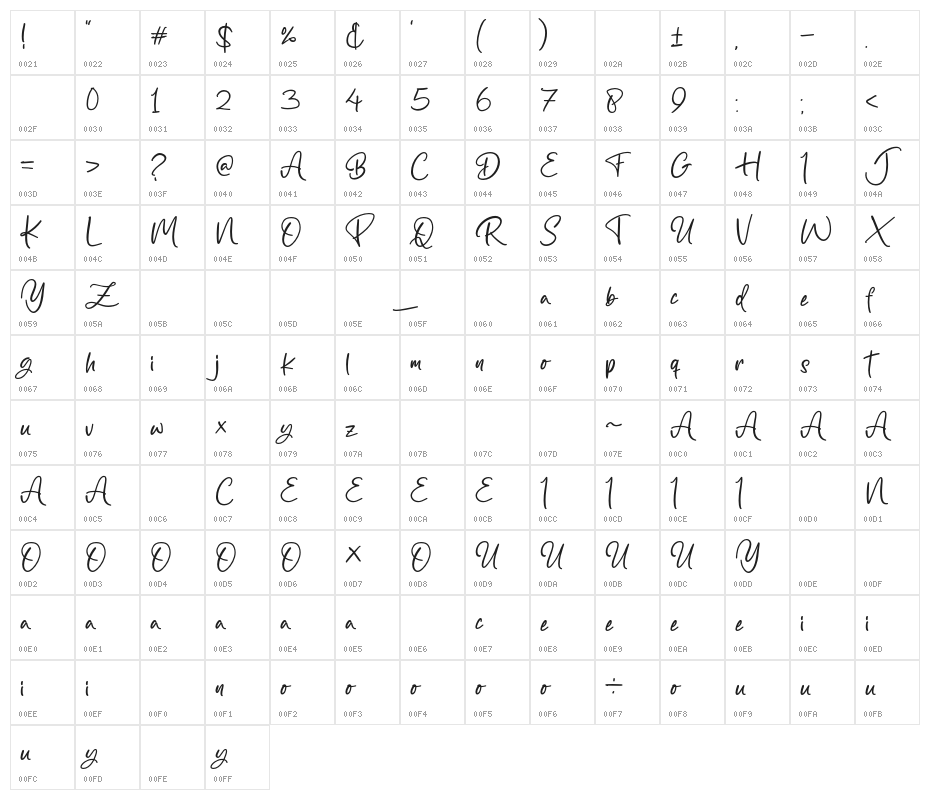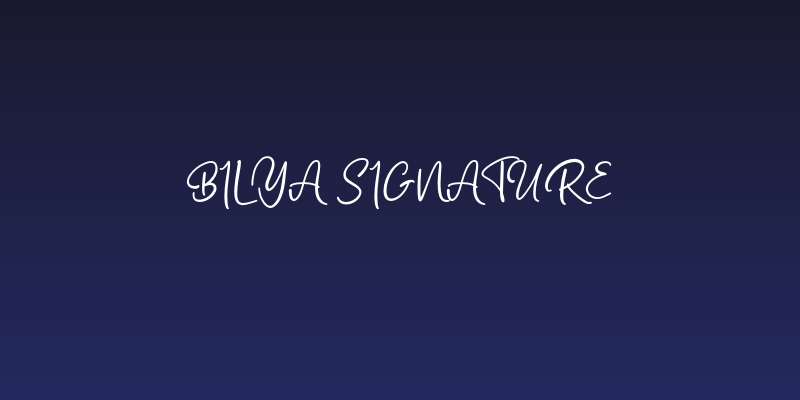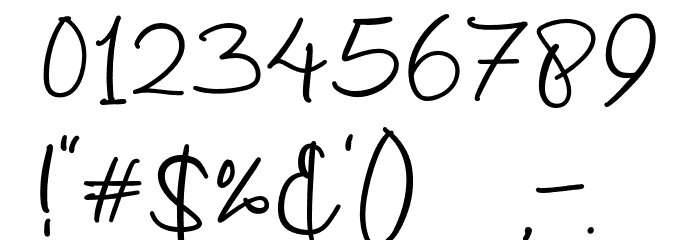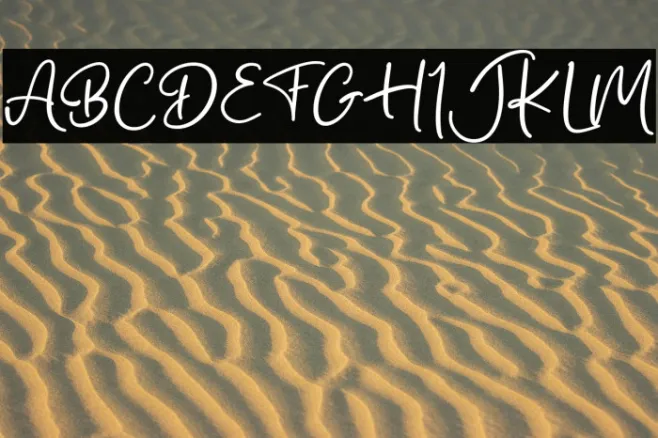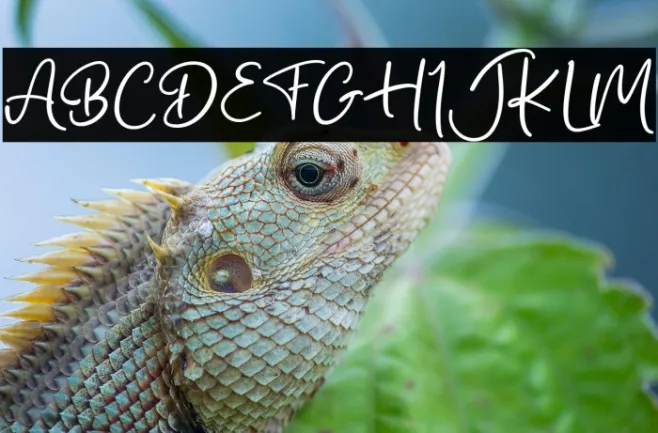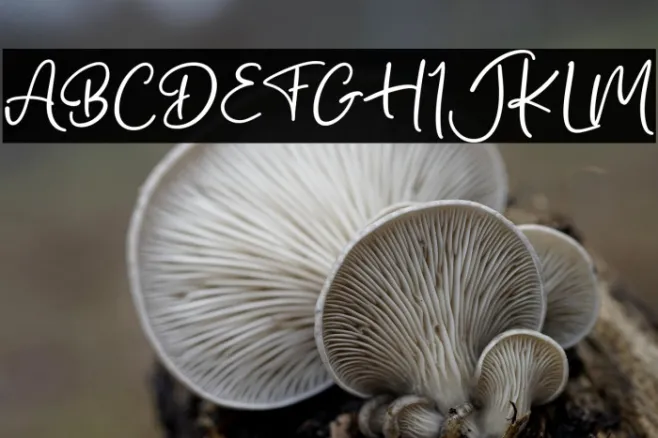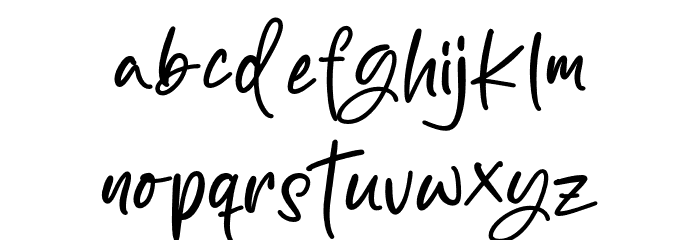
Bilya Signature Font
Bilya Signature Description
This font exudes a casual yet elegant handwritten style, characterized by its fluid and connected strokes that mimic natural handwriting. The uppercase letters are bold and slightly slanted, giving a sense of movement and dynamism. The lowercase letters maintain a consistent flow, with some characters featuring unique loops and curves that add personality. The numbers are clear and legible, maintaining the same handwritten aesthetic. Special characters are well-integrated, ensuring versatility in various contexts. Overall, this font captures a personal and approachable feel, making it ideal for projects that require a human touch.